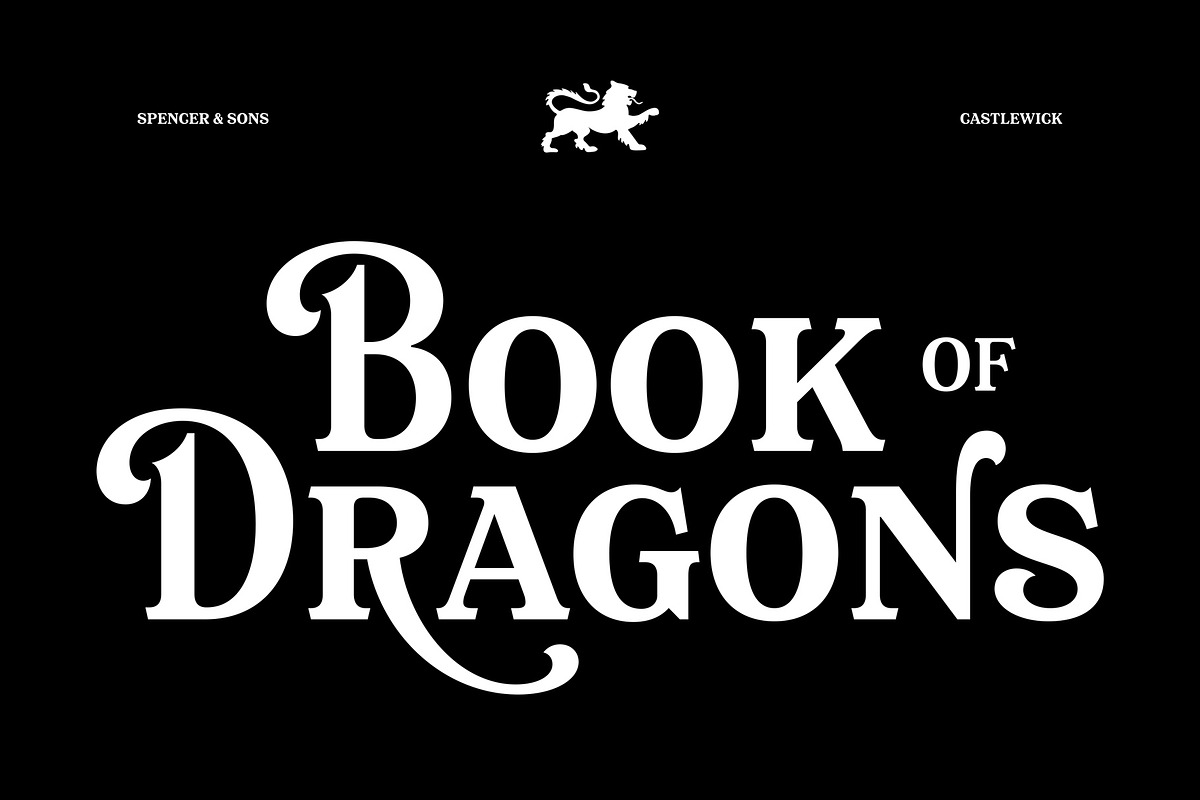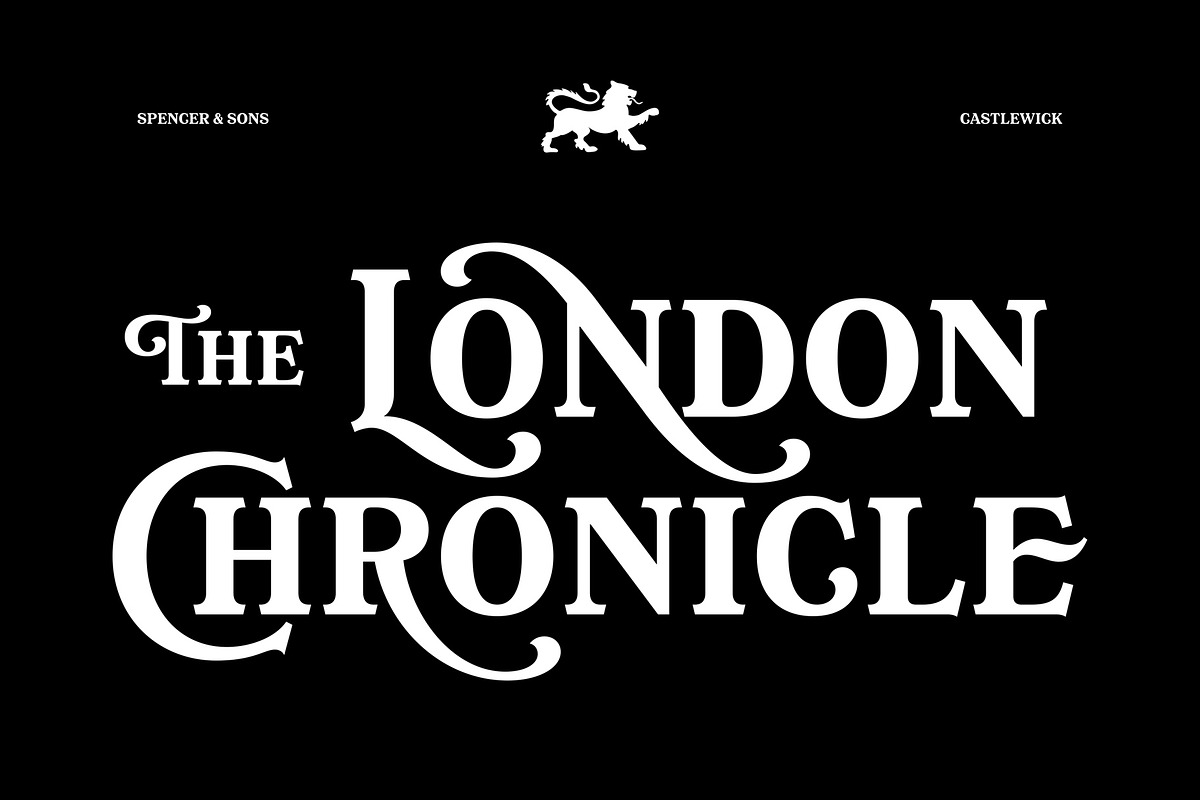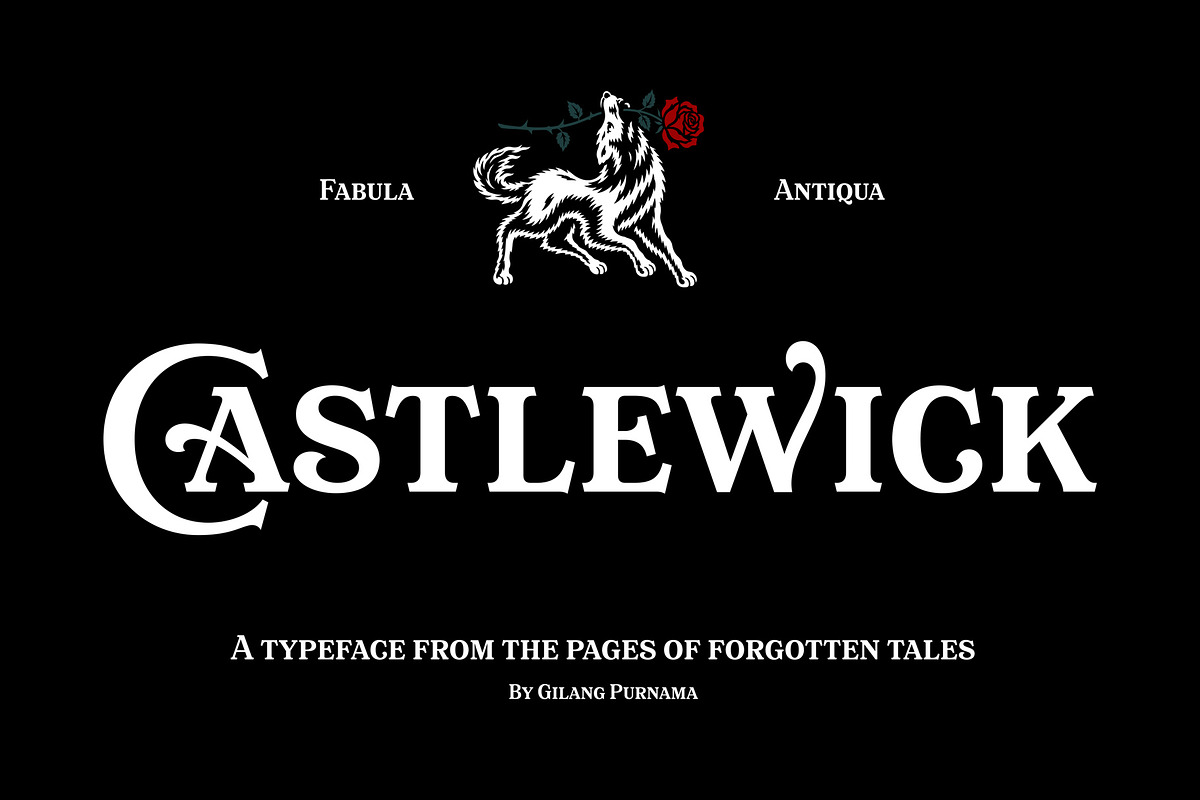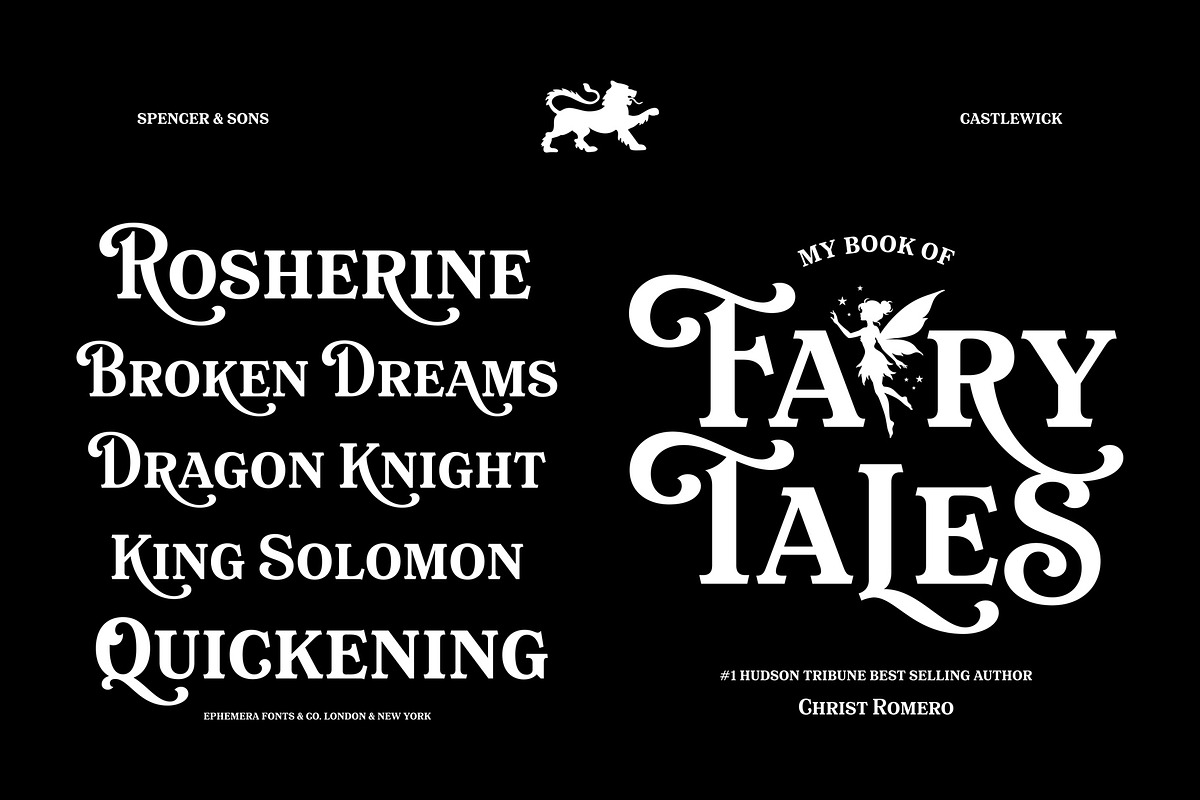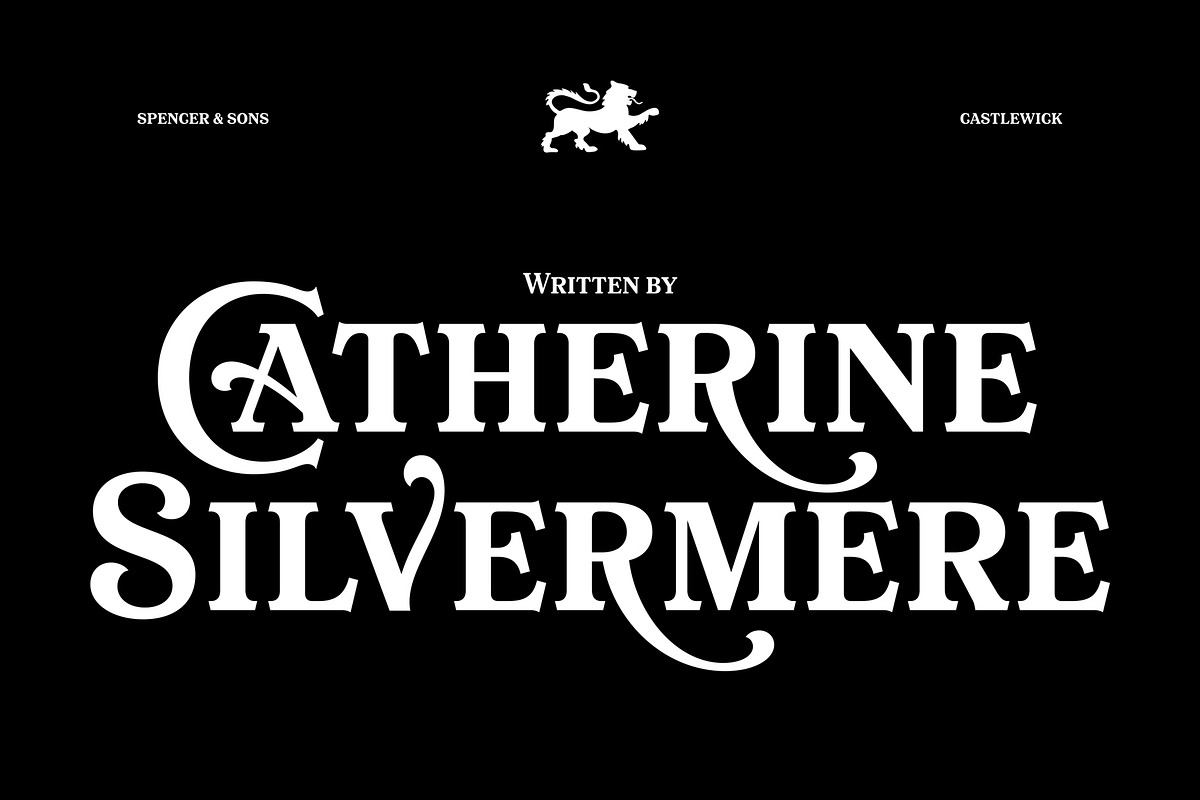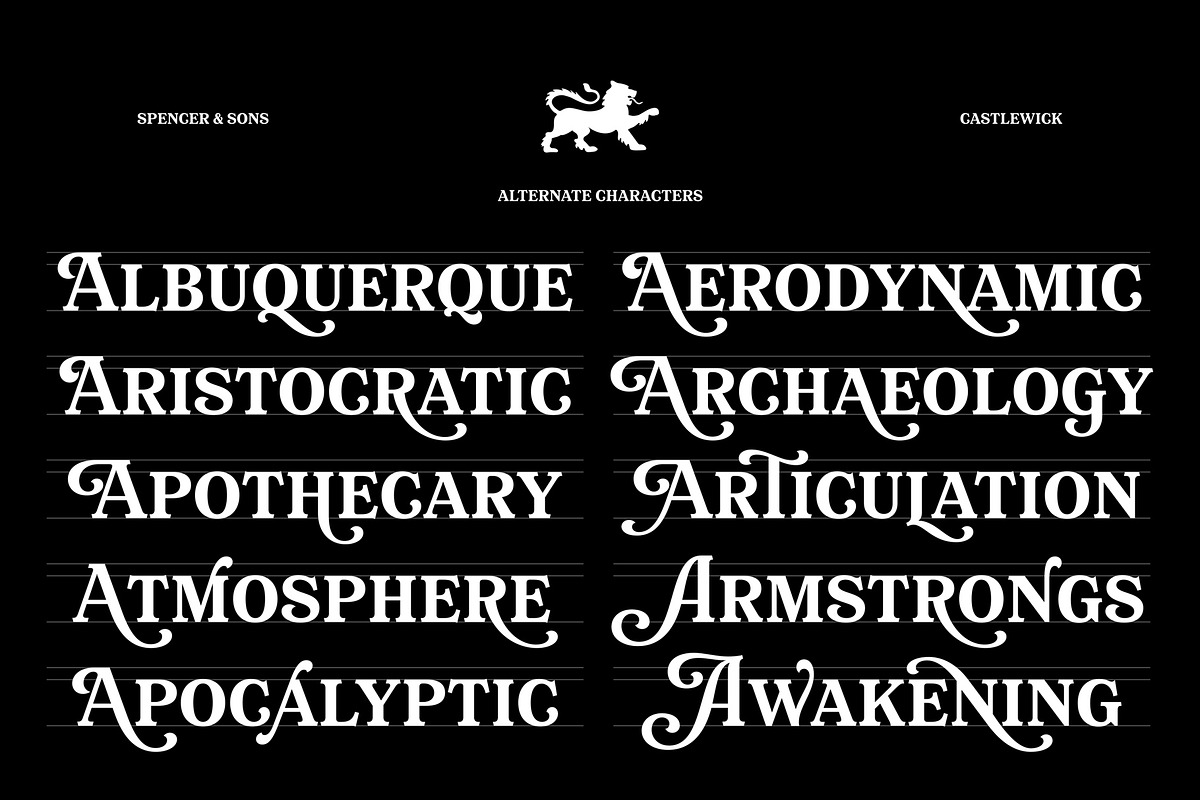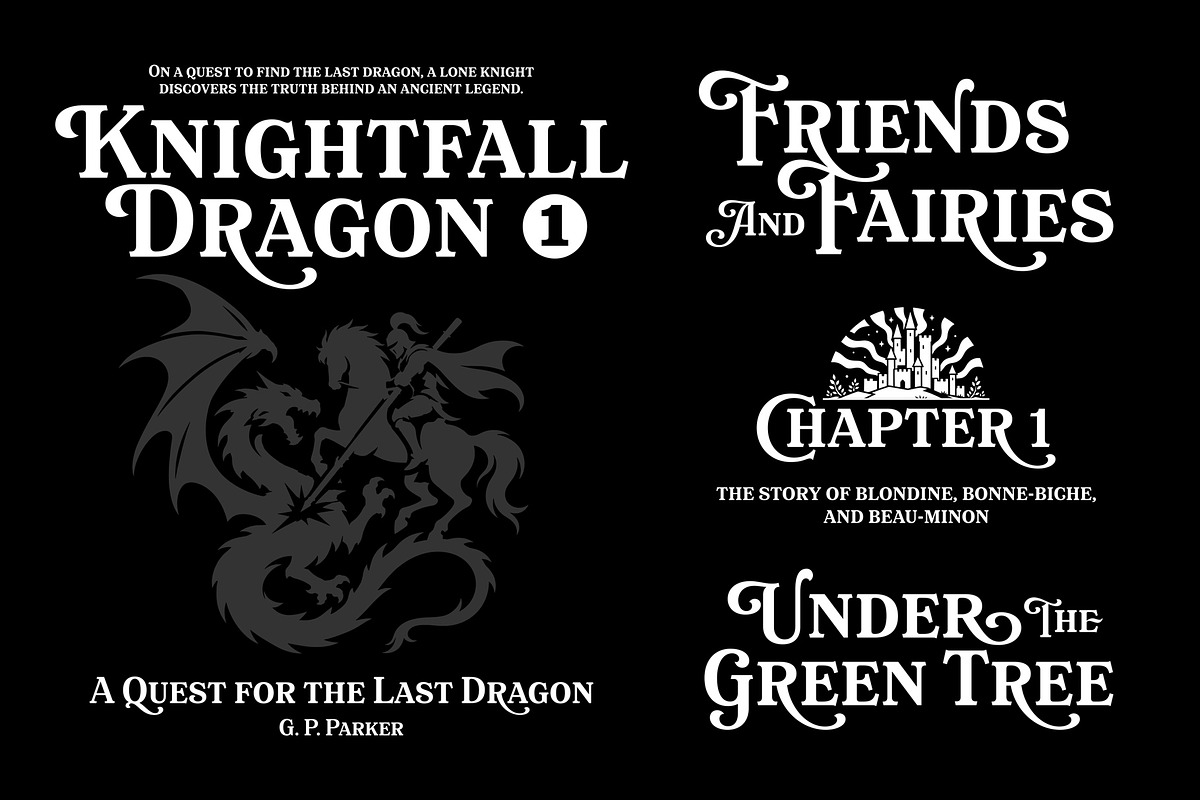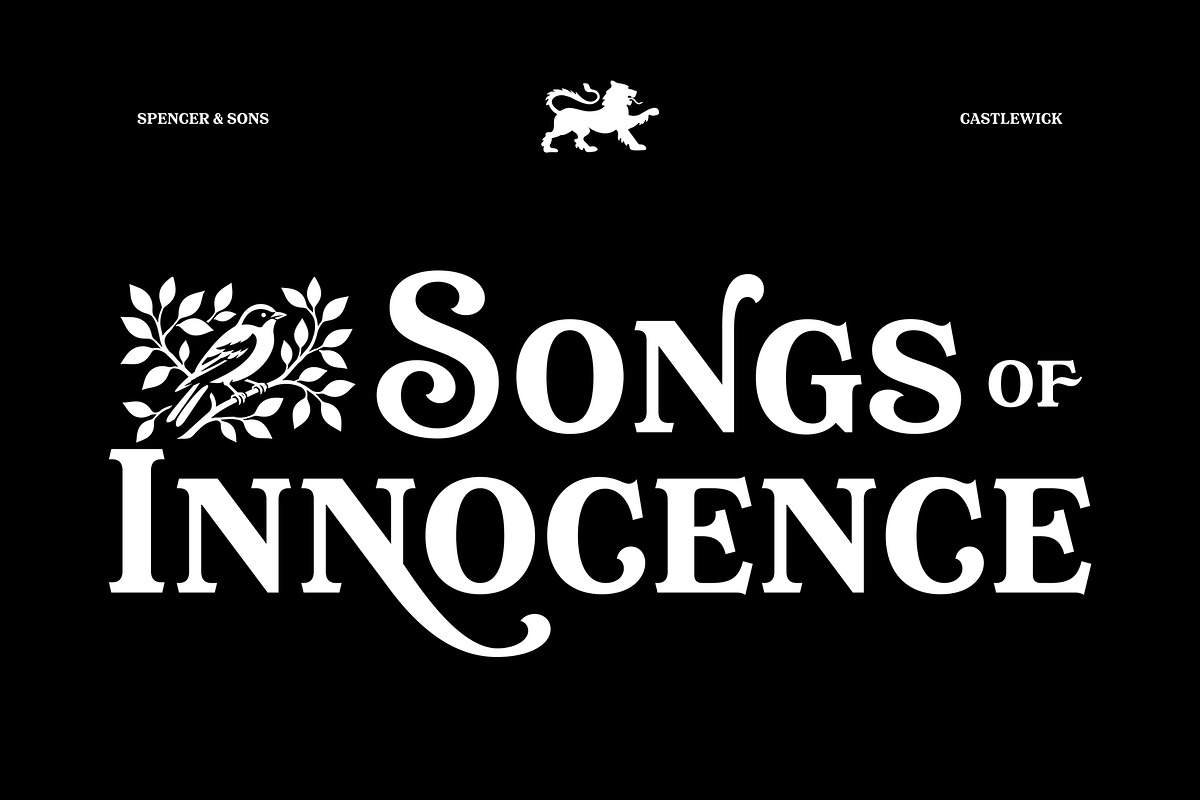
Castlewick - Old Tale Typeface
Castlewick is a decorative serif typeface inspired by the charm of old storybooks, classic fairy tales, and vintage fantasy covers. Featuring bold letterforms, elegant swashes, and over 200 alternate characters, Castlewick gives you the freedom to create magical titles, dramatic logos, and timeless display compositions. The font is also PUA encoded, making its special characters easy to access in various design software. Perfect for book covers, posters, fantasy branding, packaging, badges, editorial layouts, and designs that need a nostalgic storybook atmosphere. Its classic yet playful personality makes it ideal for projects that need a magical, elegant, and memorable visual voice.